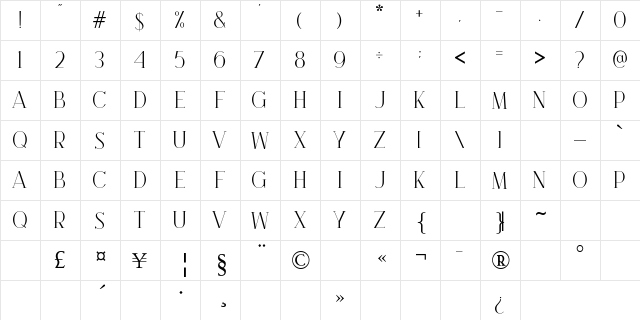
Brooke Regular
| Designer | Nofi Sofyan Hadi |
Design Context for Brooke Typeface
Brooke is a composed and adaptable typeface that performs quietly and consistently across a wide range of design contexts.